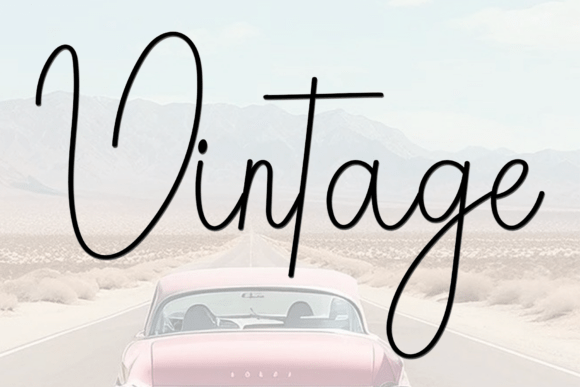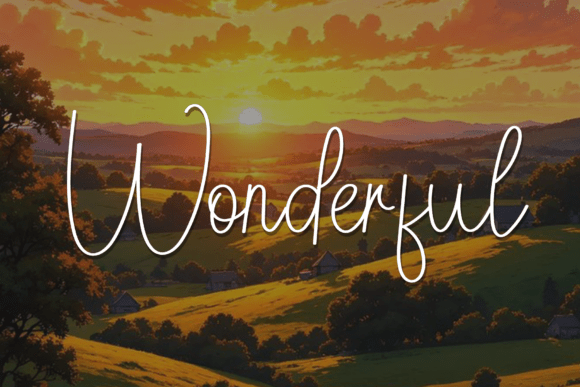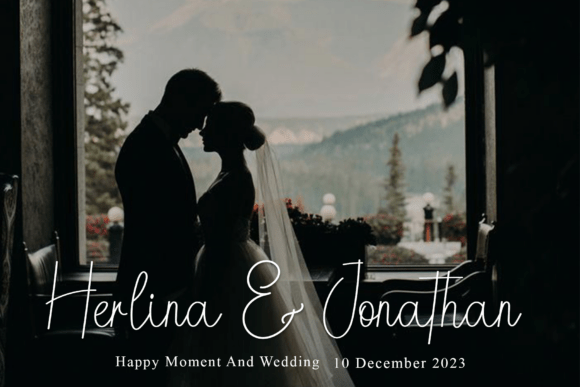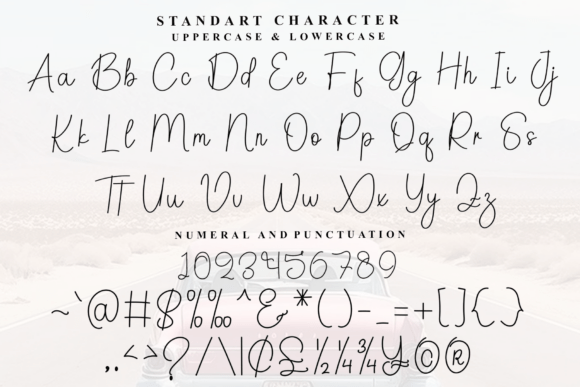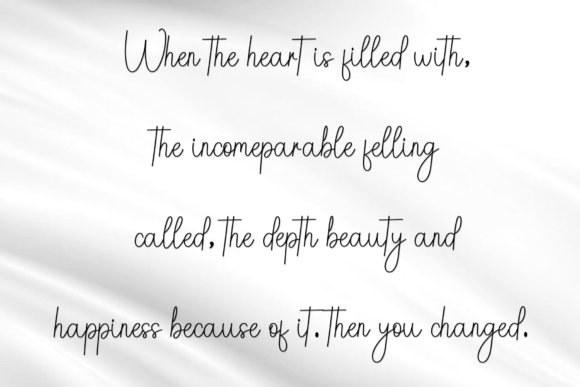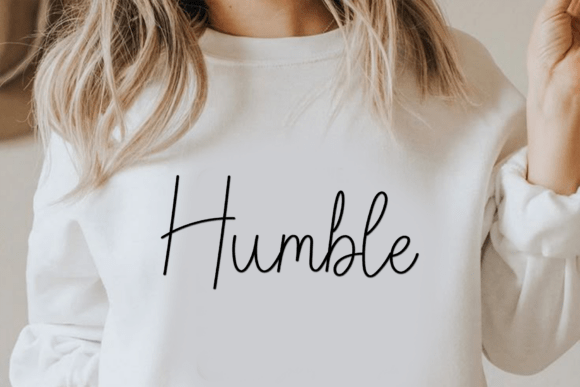
The Perfect Signature: Elevating Your Design with the Best Signature Font
Have you ever sat in front of a blank page, trying to decide on the perfect font to represent your artistic vision? We’ve all been there. For designers, choosing the right font can be a daunting task, but what if we told you there’s a font that can elevate your designs and leave a lasting impression?
Enter the Best Signature Font, a beautiful and eye-catching font that exudes a soft, unique touch. With its distinctive strokes and versatile character, this font is perfect for a wide range of design projects, from crafting to creative writing. Its compatibility with various applications, including Windows and open-source platforms, makes it an ideal choice for designers looking to take their work to the next level.
Whether you’re a seasoned pro or just starting out, the Best Signature Font is a valuable addition to any designer’s toolkit. Its natural style and charm will enhance your designs, making them appealing to audiences across different artistic and creative fields.
Key Features of “Best Signature Font”
- Unique Characteristic: The font includes a custom-designed ampersand (&) symbol and a set of elegant swashes for added flair
Review: Best Signature Font
As a designer, I was excited to dive into Best Signature Font and see if it lives up to its name. Here’s my honest take.
- Unique, stylish designs that will set your signature apart
The font is indeed stylish and eye-catching, making it perfect for those who want to stand out in a crowded market. I appreciate the variety of designs, which cater to different tastes and preferences.
- Some designs may be too flashy or over-the-top for formal or professional settings
Overall, I’d say Best Signature Font is a solid choice for those looking to add some personality to their signature. However, it’s essential to weigh the pros and consider your specific needs before making a decision.